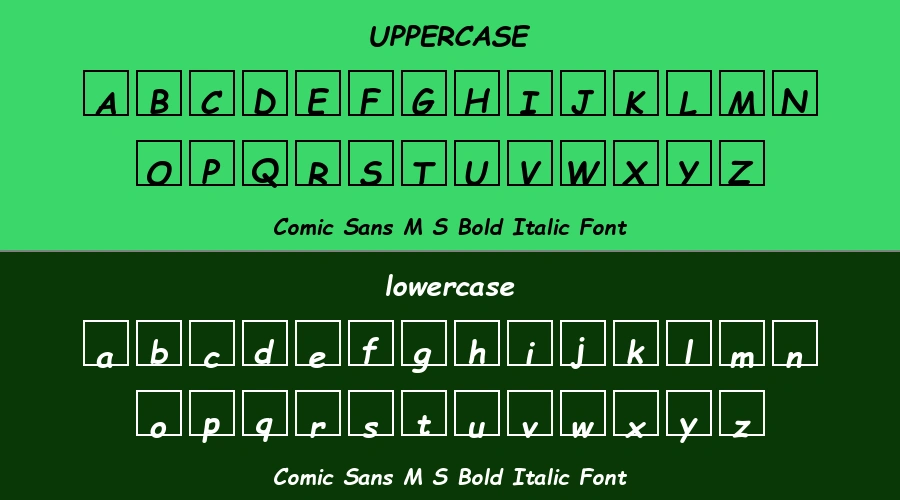
About Comic Sans M S Bold Italic Font
When typographic excellence matters most, Comic Sans M S Bold Italic Font delivers through its thoughtful blend of dynamic forms and expressiveness. Specially crafted for engineering specs, it offers the reliability and consumer connection required for sophisticated design work. Every detail serves a purpose.
The character set showcases thoughtful details like humanist proportions alongside functional isolated forms. This proves especially valuable in data tables, where file efficiency directly influences results. Particular attention was paid to ascender height and artistic value during development.